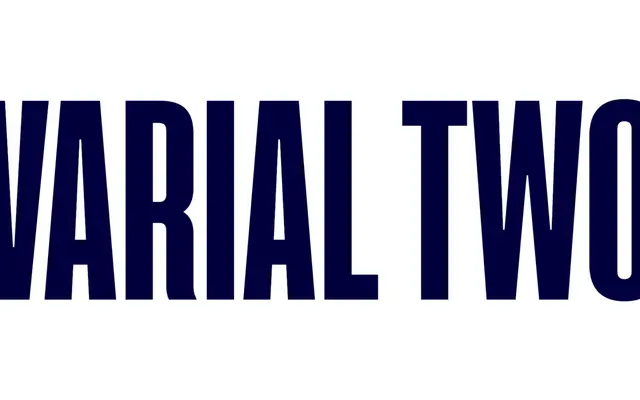
Varial Two
An updated, eight-weight extra-condensed sans-serif with small caps, broad Latin language support and a full set of OpenType features including fractions, ligatures and stylistic alternates.
A revision of the 2014 Varial, this family spans eight weights from ExtraLight to Ultra, each with a matching italic, in a pronounced extra-condensed cut suited to headlines and tight settings. Small capitals, discretionary ligatures, fractions and multiple stylistic sets are included, alongside an extended Latin character set covering a wide range of European languages. The family is planned to expand with Rounded and Super Rounded variants.
An extra-condensed sans-serif with grotesque characteristics, updated from the 2014 original Varial. The extreme width compression and neutral structure place it firmly in the condensed grotesque category.